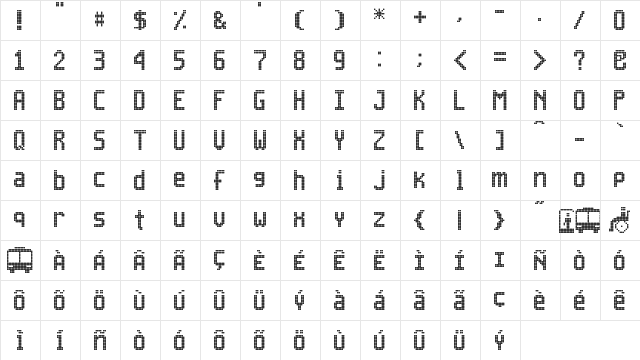
Inova 13x7 Regular
Design Context for Inova 13x7 Typeface
Inova 13x7 is a composed and adaptable typeface that performs quietly and consistently across a wide range of design contexts.